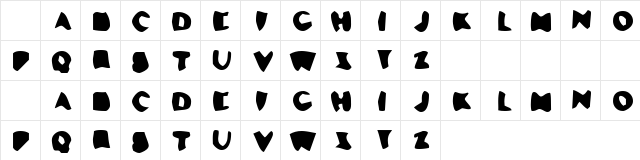
Los Del Queso Regular
Design Context for Los Del Queso
Los Del Queso is a composed and adaptable typeface that performs quietly and consistently across a wide range of design contexts.